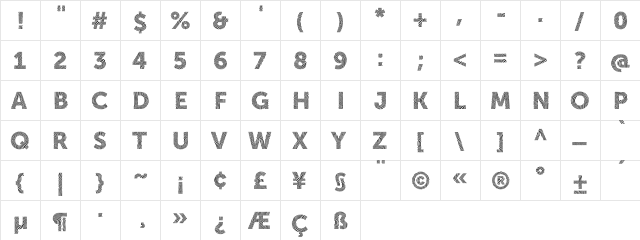
Zimbra Bold
| Designer | Alex Etewut |
Design Context for Zimbra Typeface
Zimbra is a composed and adaptable typeface that performs quietly and consistently across a wide range of design contexts. Its bold stroke weight gives it real presence on the page.
Pro Tip: Use Zimbra in both headline and body roles to test its range before committing to a single application.